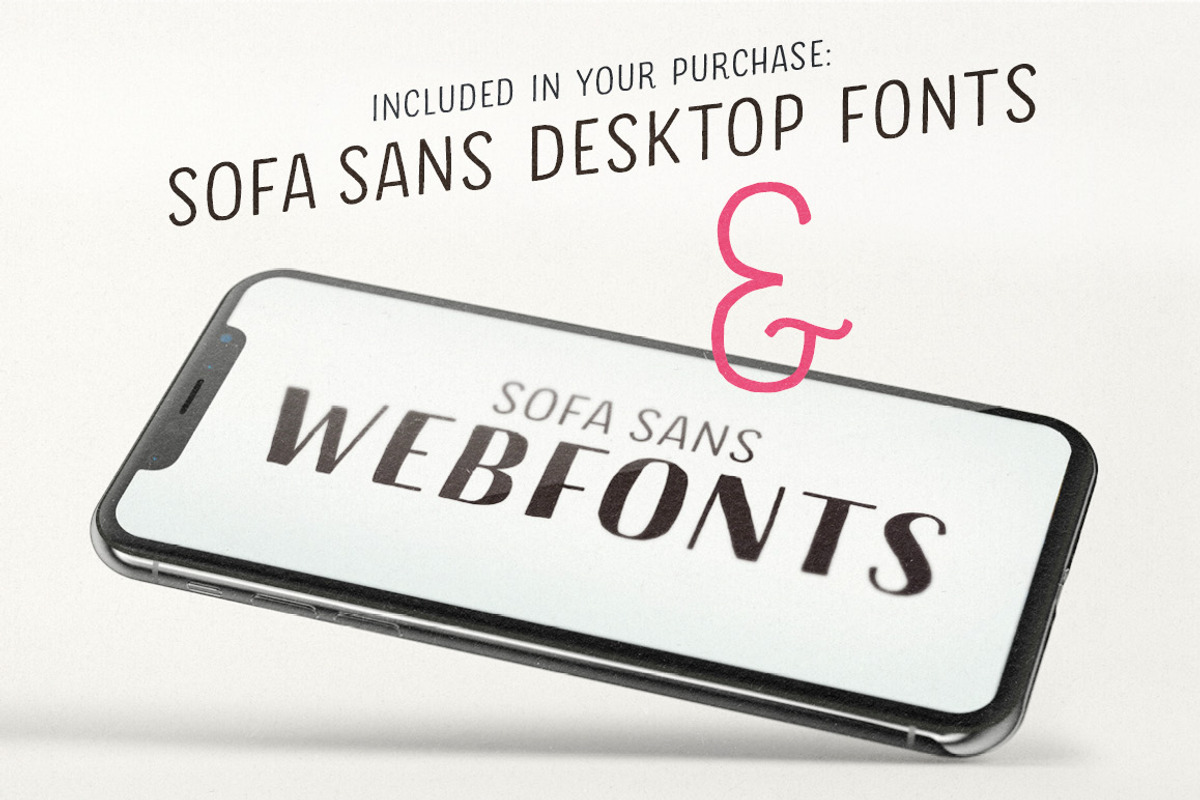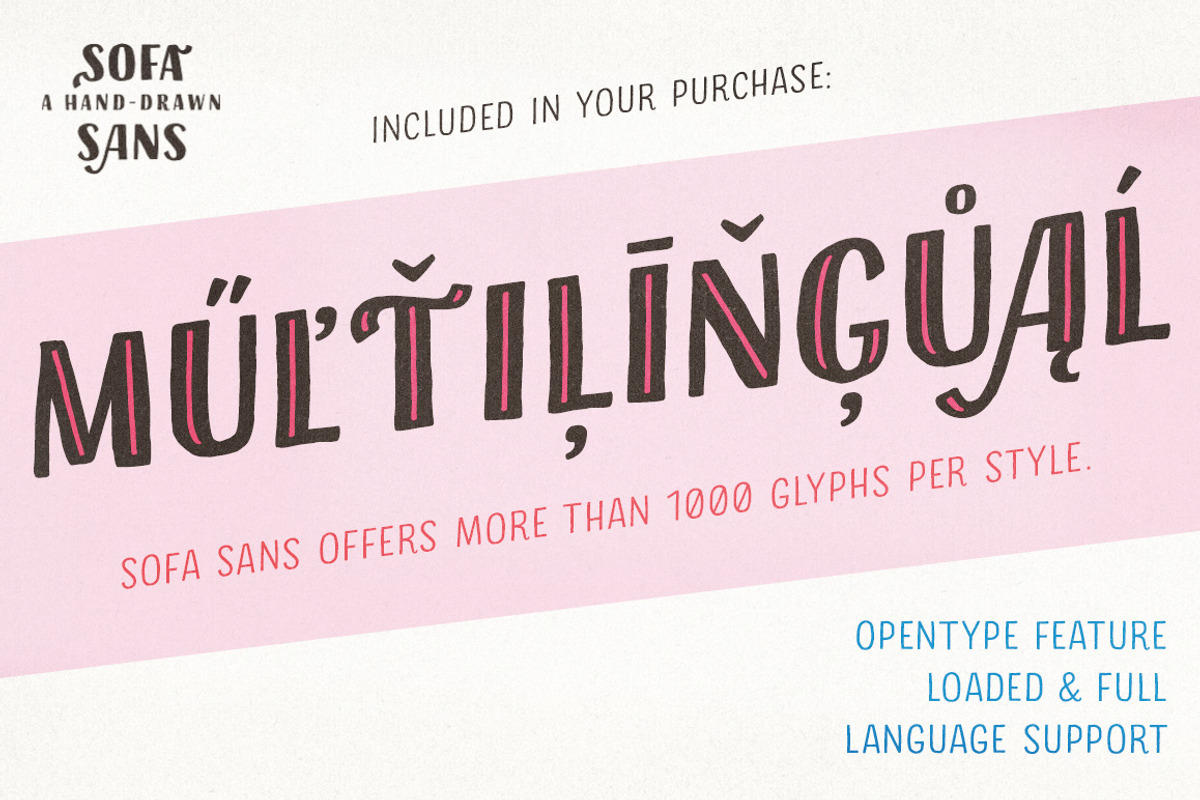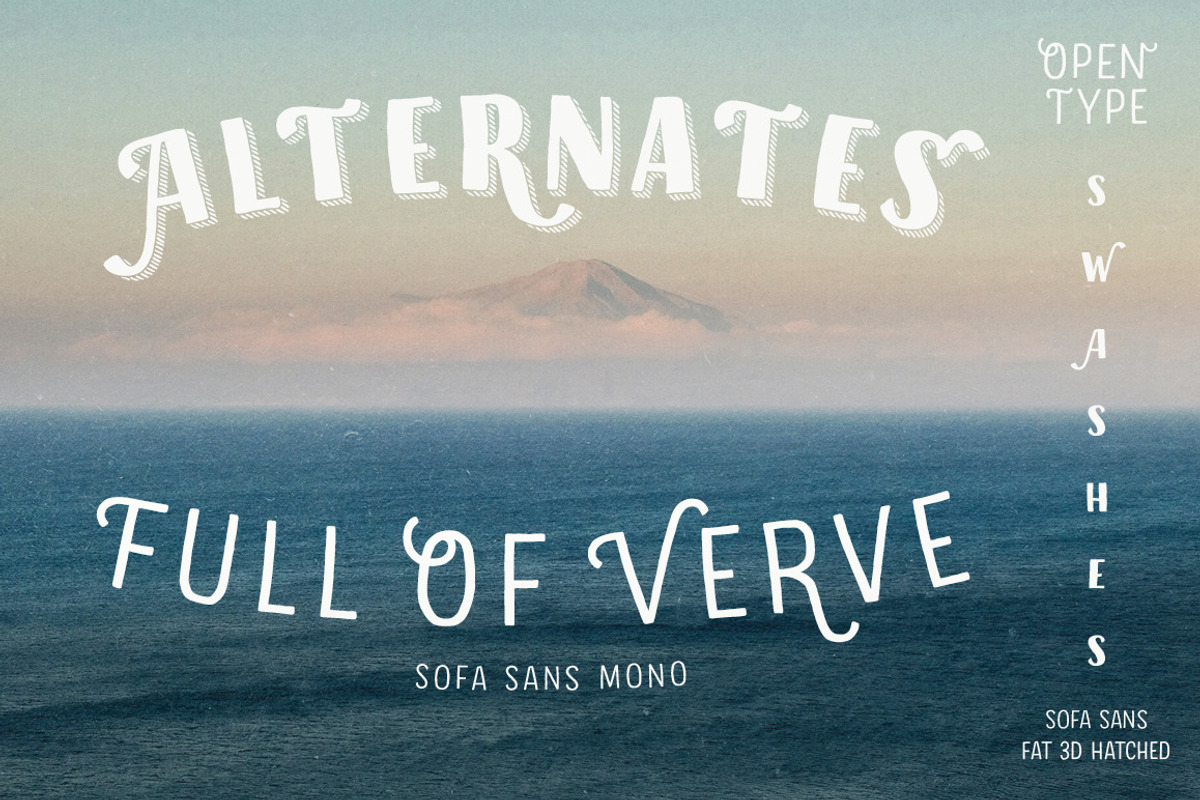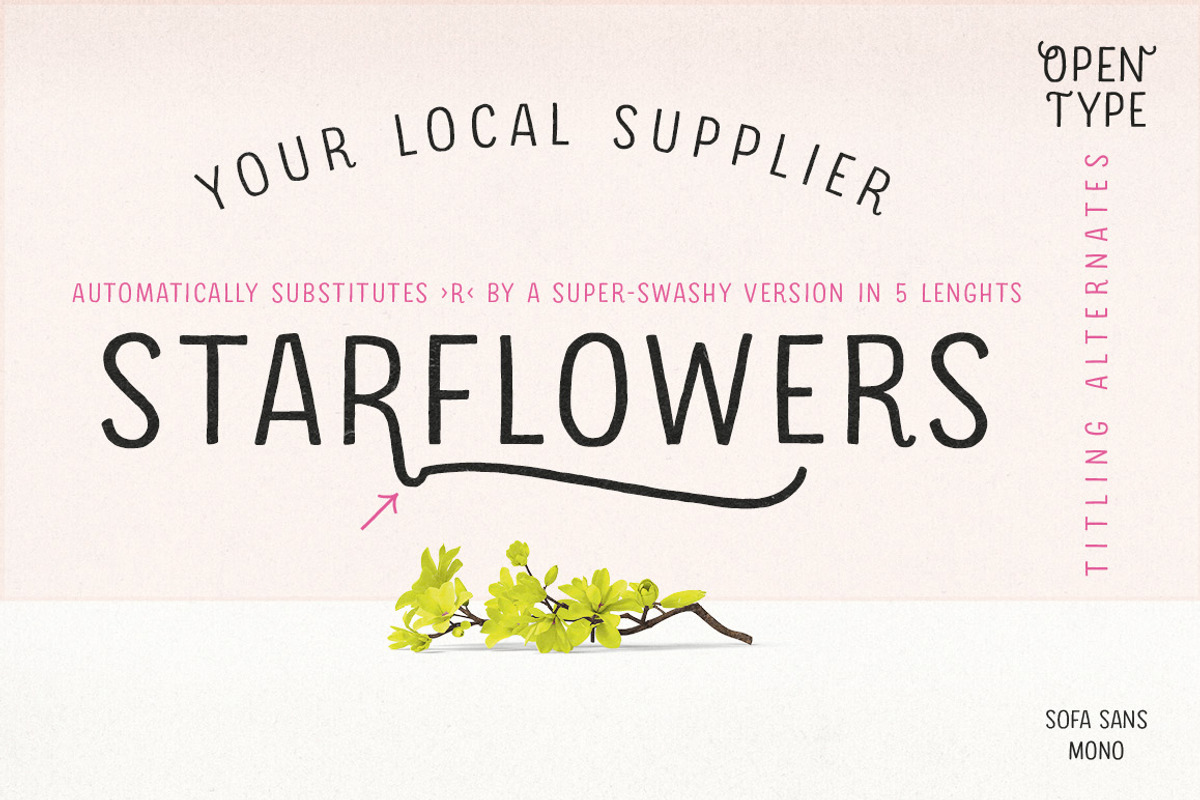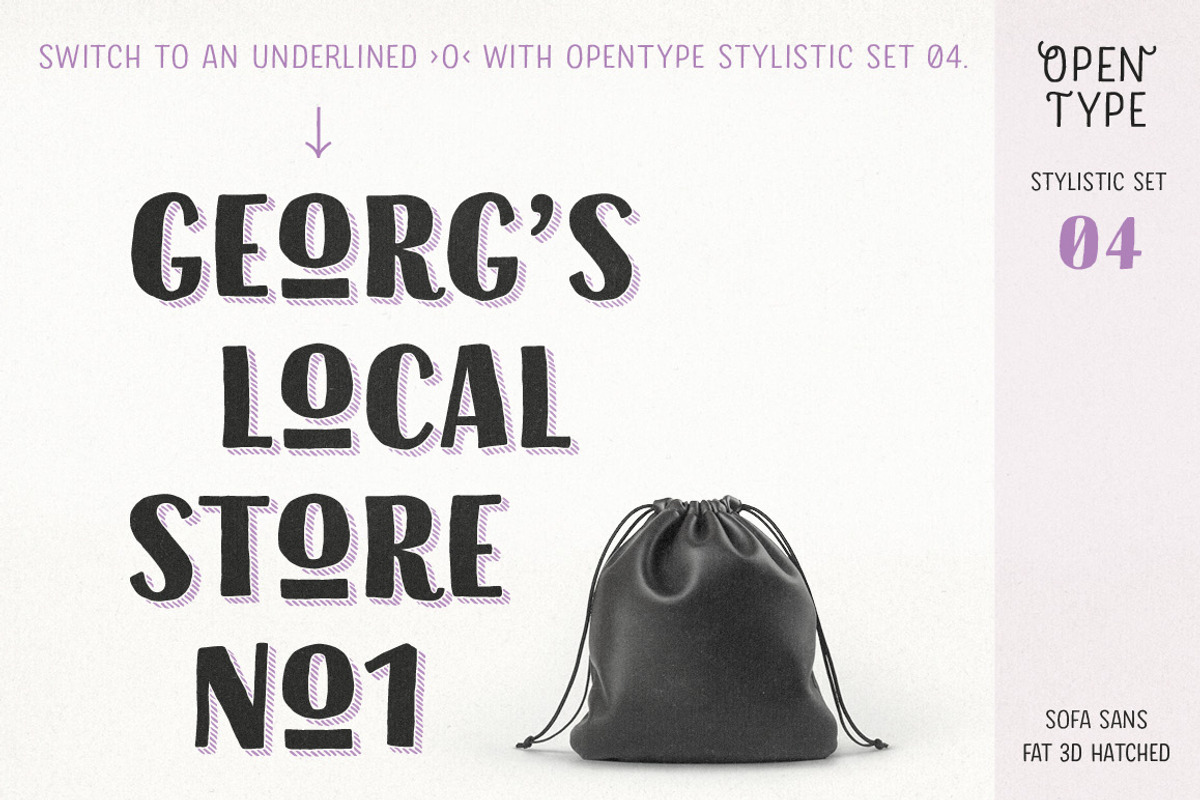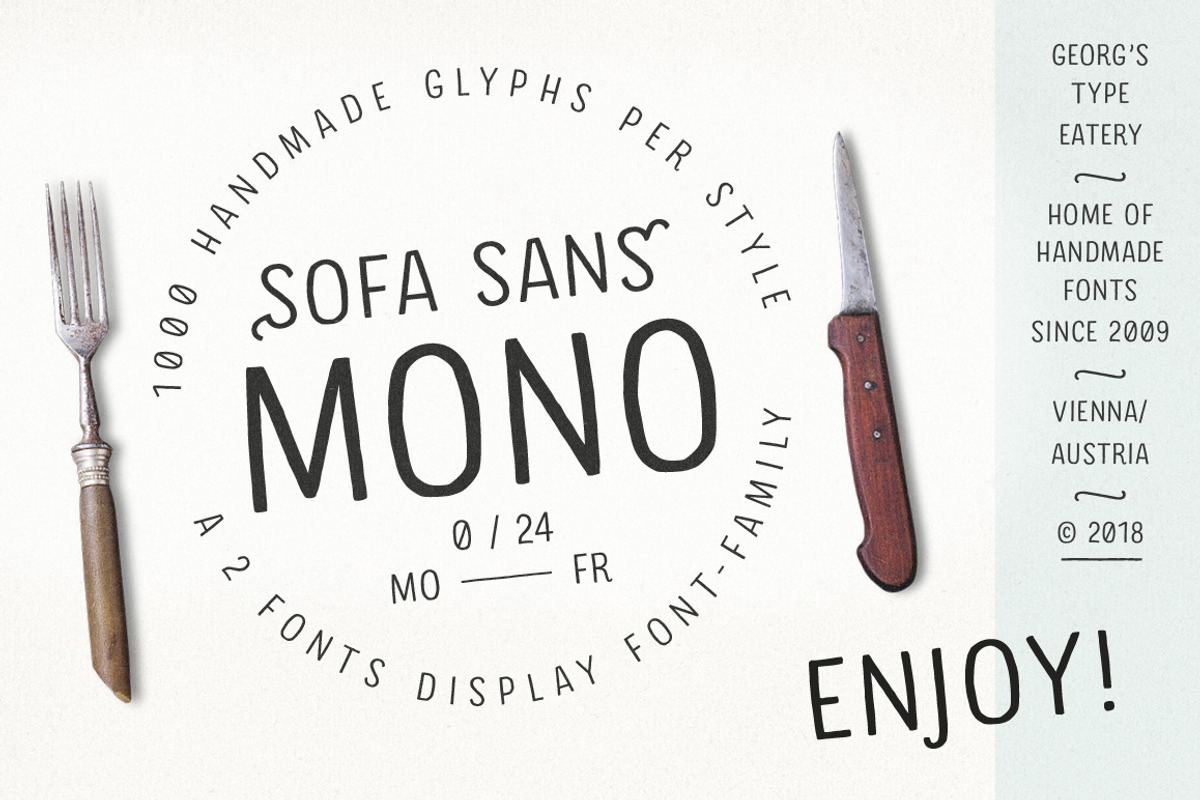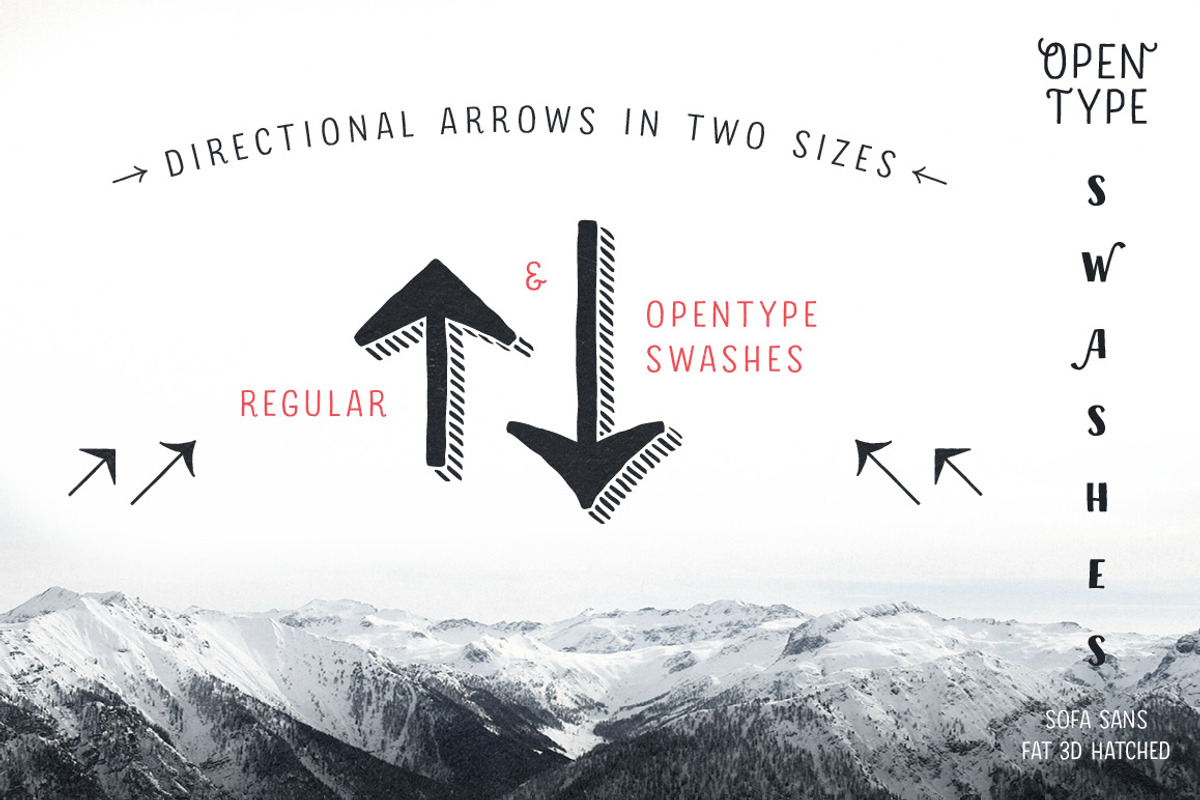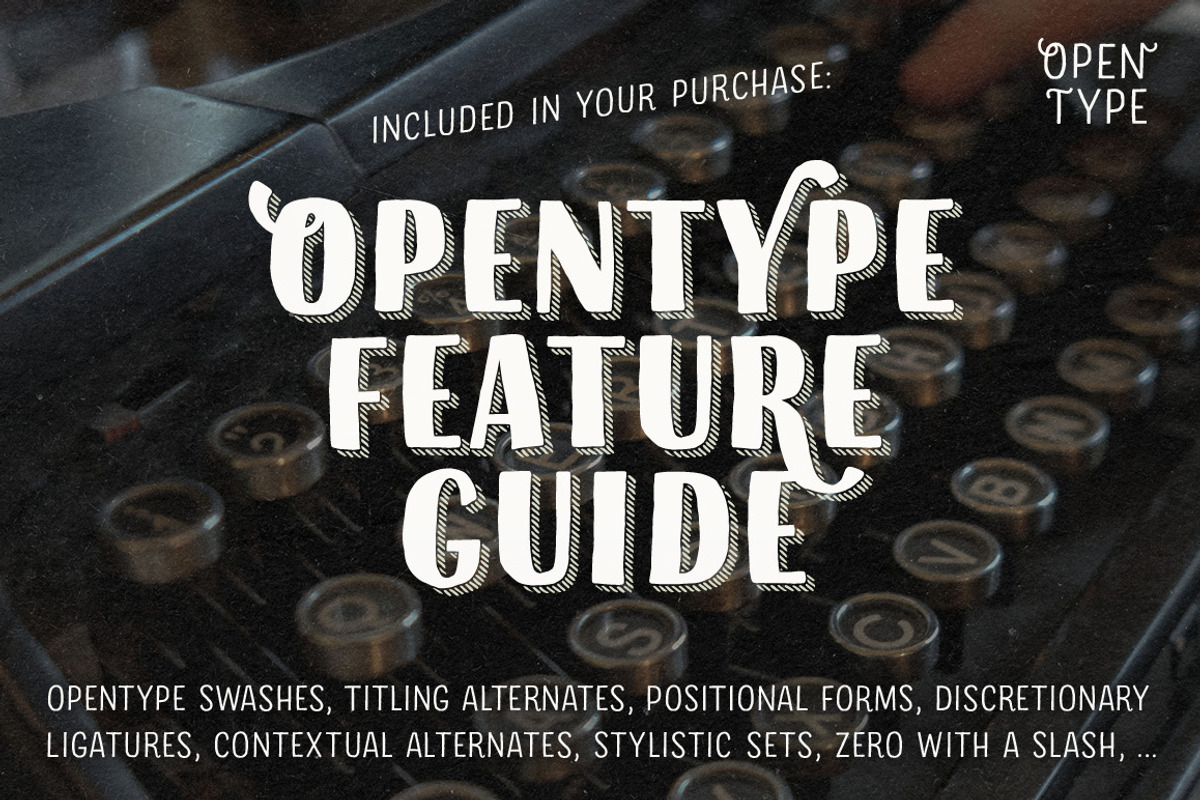
Pack of 2 Hand drawn Monoline Fonts
2 Hand drawn Monoline Sans Serif Fonts for Desktop and Web:
1000+ glyphs per font
Why Pack of 2 Hand drawn Monoline Fonts is worth a look
Pack of 2 Hand drawn Monoline Fonts by Georg Herold-Wildfellner fits naturally into Branding, posters, packaging, typography.